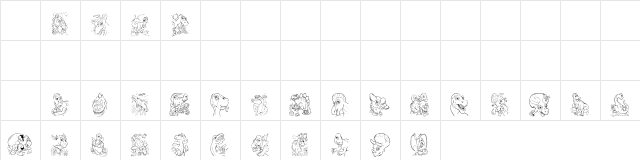
101! Color Fill DinoZ Regular Font Preview
101! Color Fill DinoZ Regular
Design Context for 101! Color Fill DinoZ Typeface
101! Color Fill DinoZ is a composed and adaptable typeface that performs quietly and consistently across a wide range of design contexts.